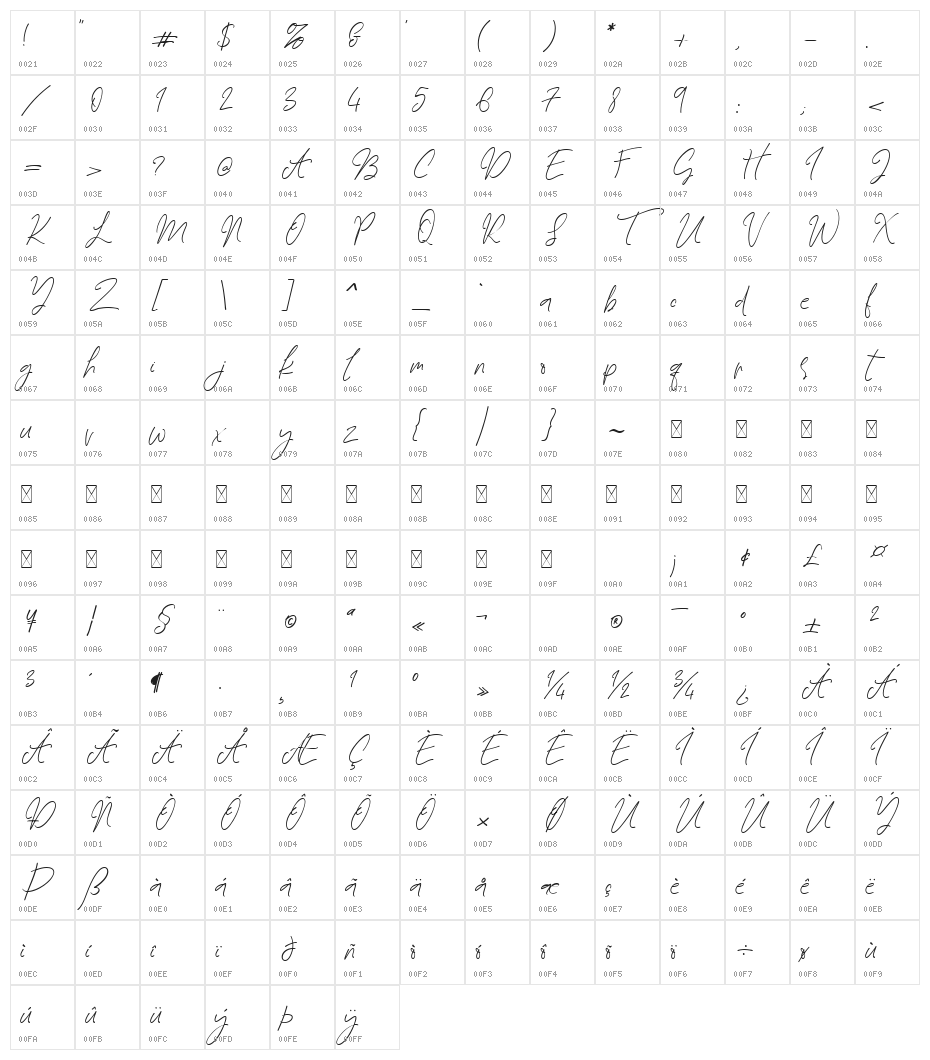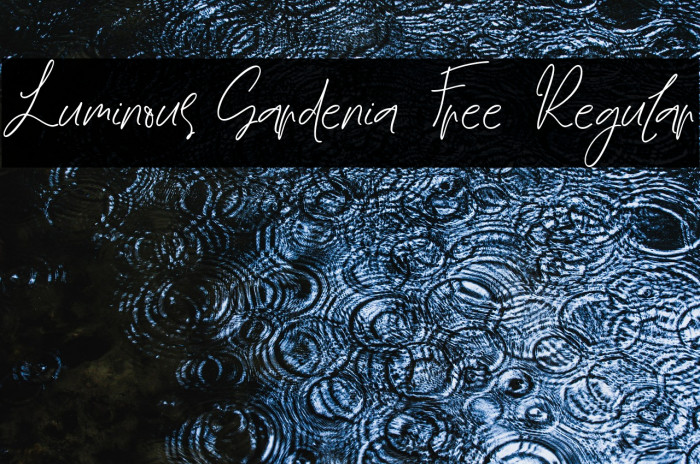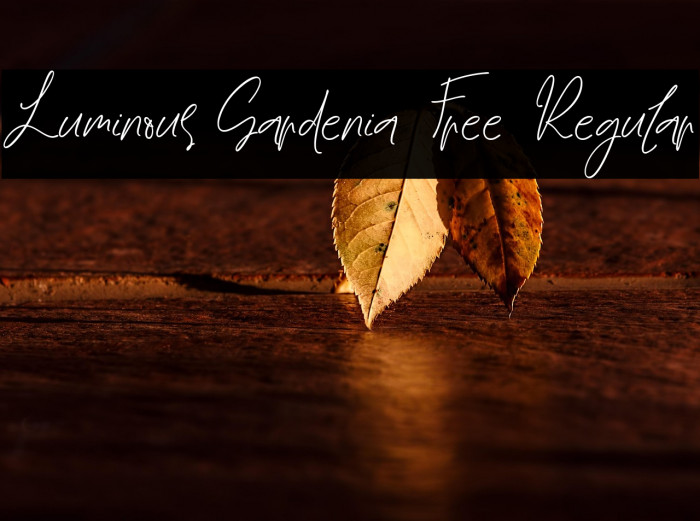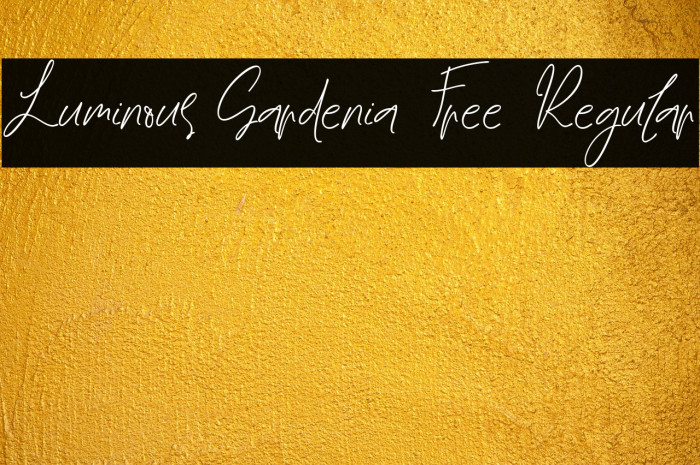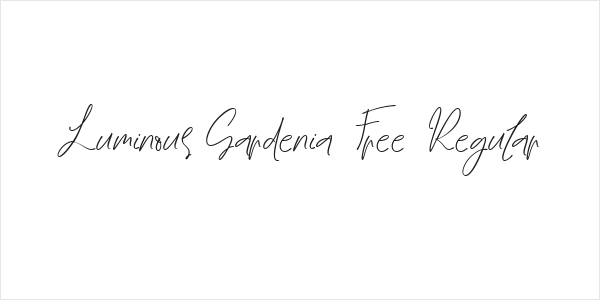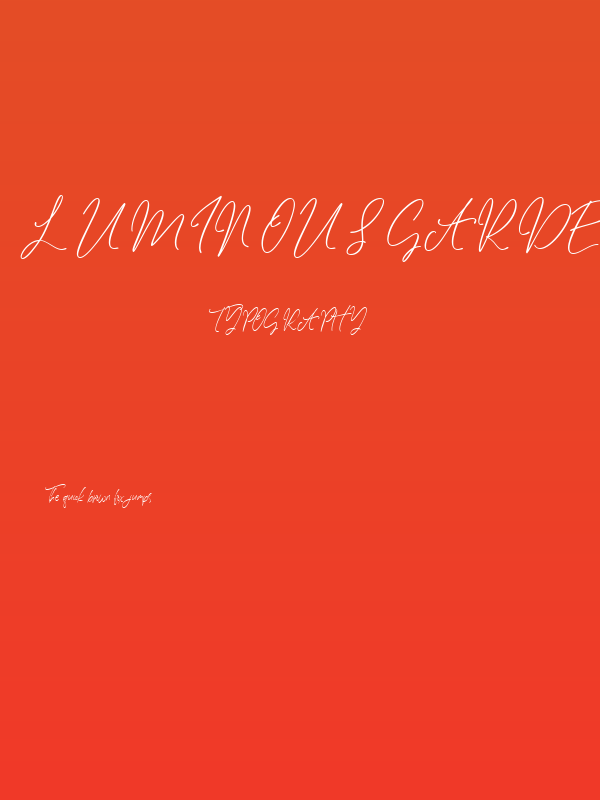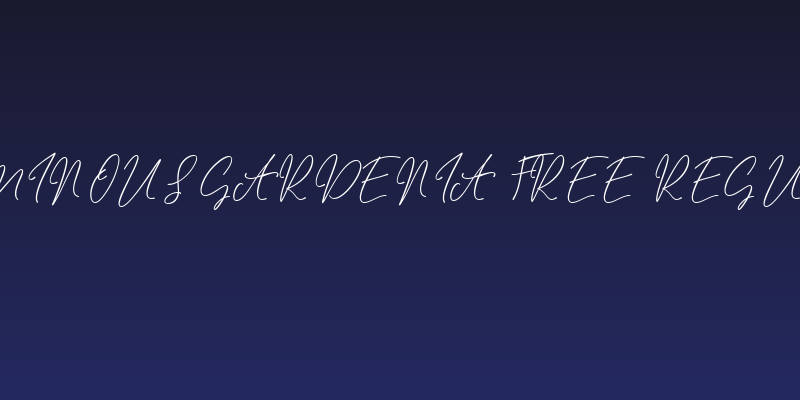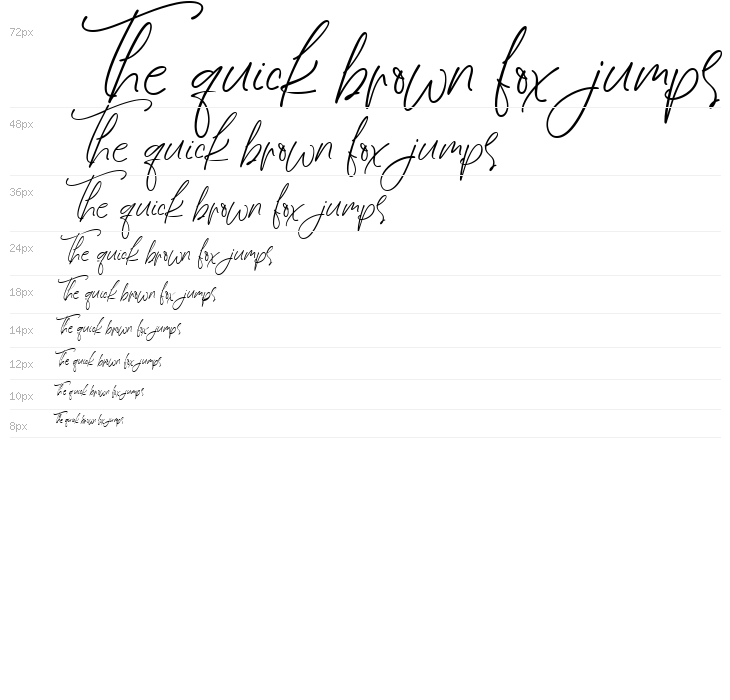
Luminous Gardenia Free Regular Font
Luminous Gardenia Free Regular Description
This font presents a modern and elegant style with clean lines and a balanced structure. The characters are well-proportioned, offering a harmonious blend of curves and straight edges. The uppercase letters exhibit a sense of authority and sophistication, while the lowercase letters maintain readability and charm. The numerals are clear and distinct, ensuring they stand out in any design. Special characters are thoughtfully designed, adding versatility to the font's usage. Overall, this font exudes a contemporary feel, making it suitable for a wide range of applications.